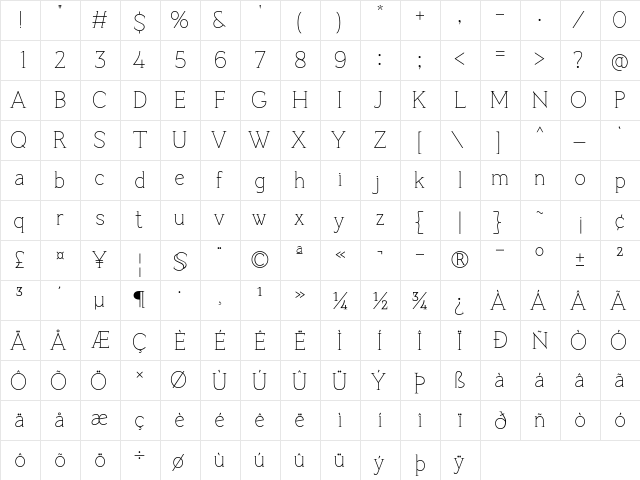
Cruncho Regular
Design Context for Cruncho Typeface
Cruncho takes a measured approach to typography — its balanced proportions and neutral character make it a reliable workhorse for both digital and print work.